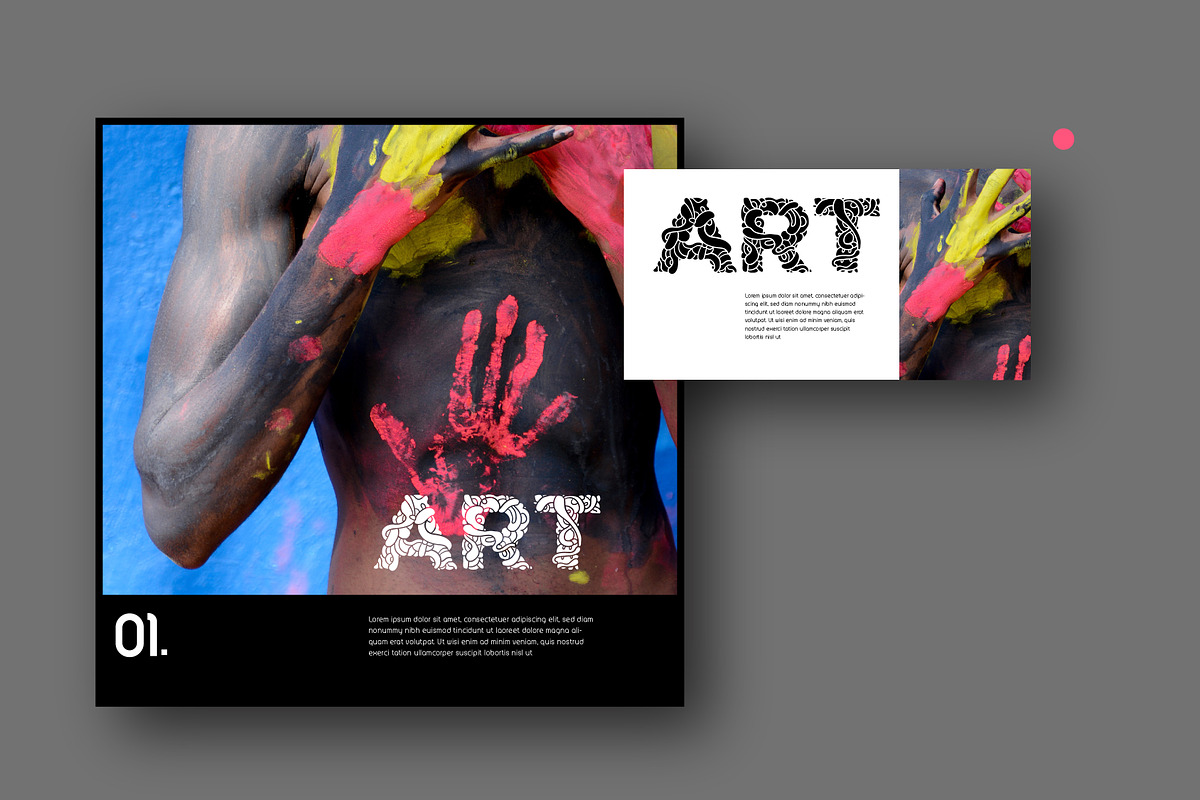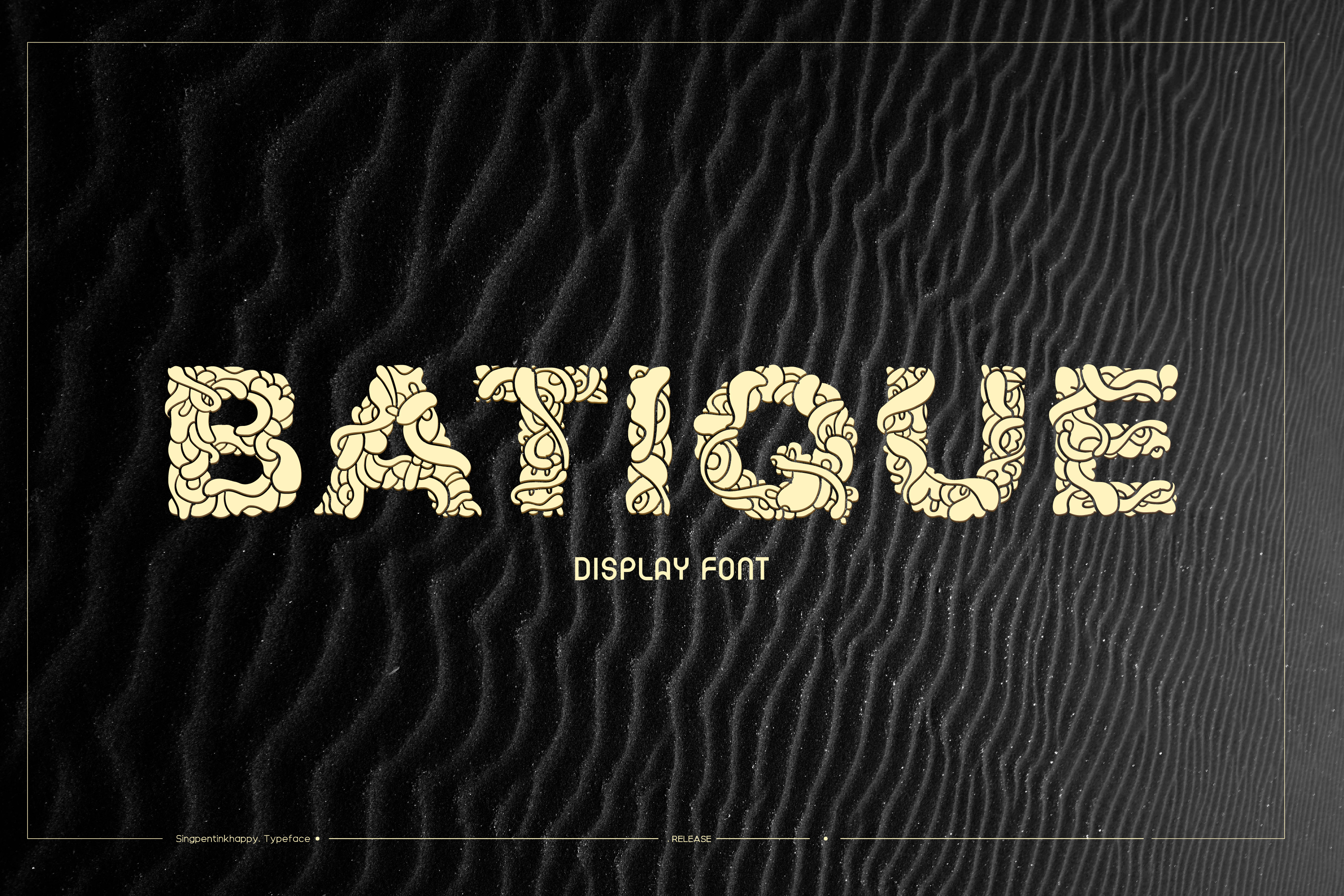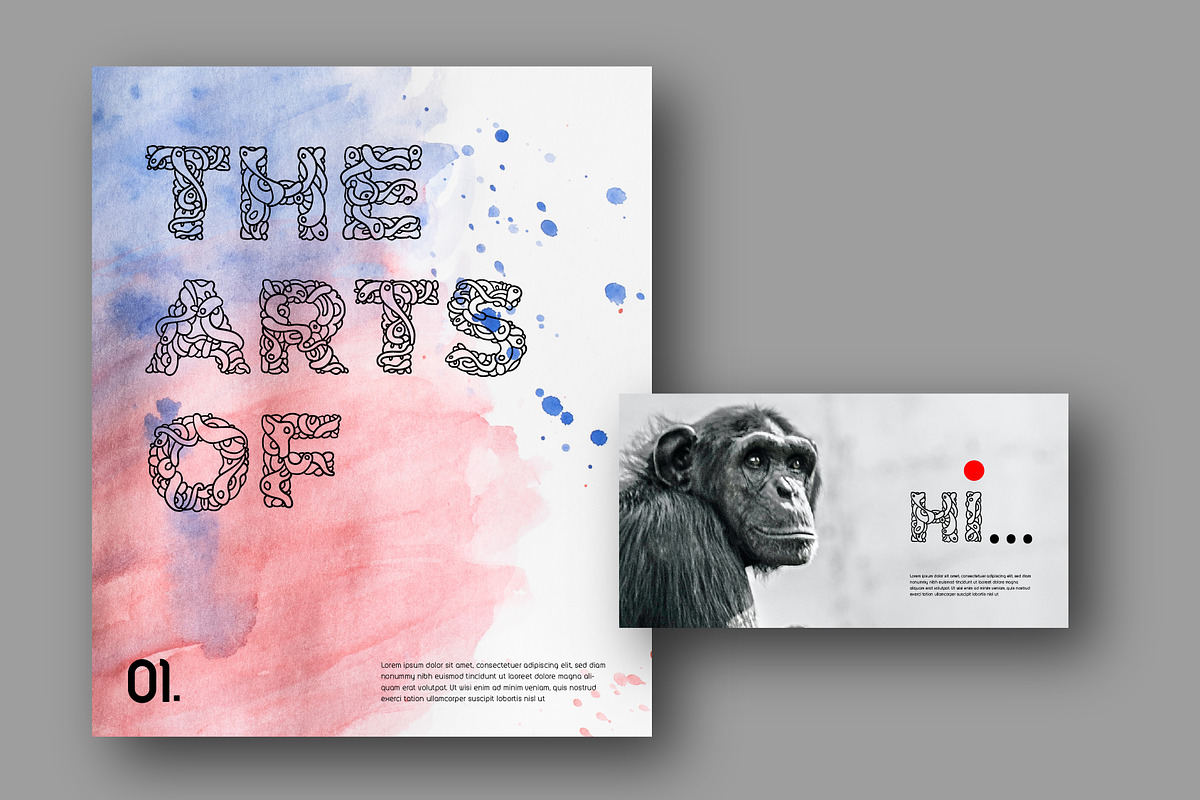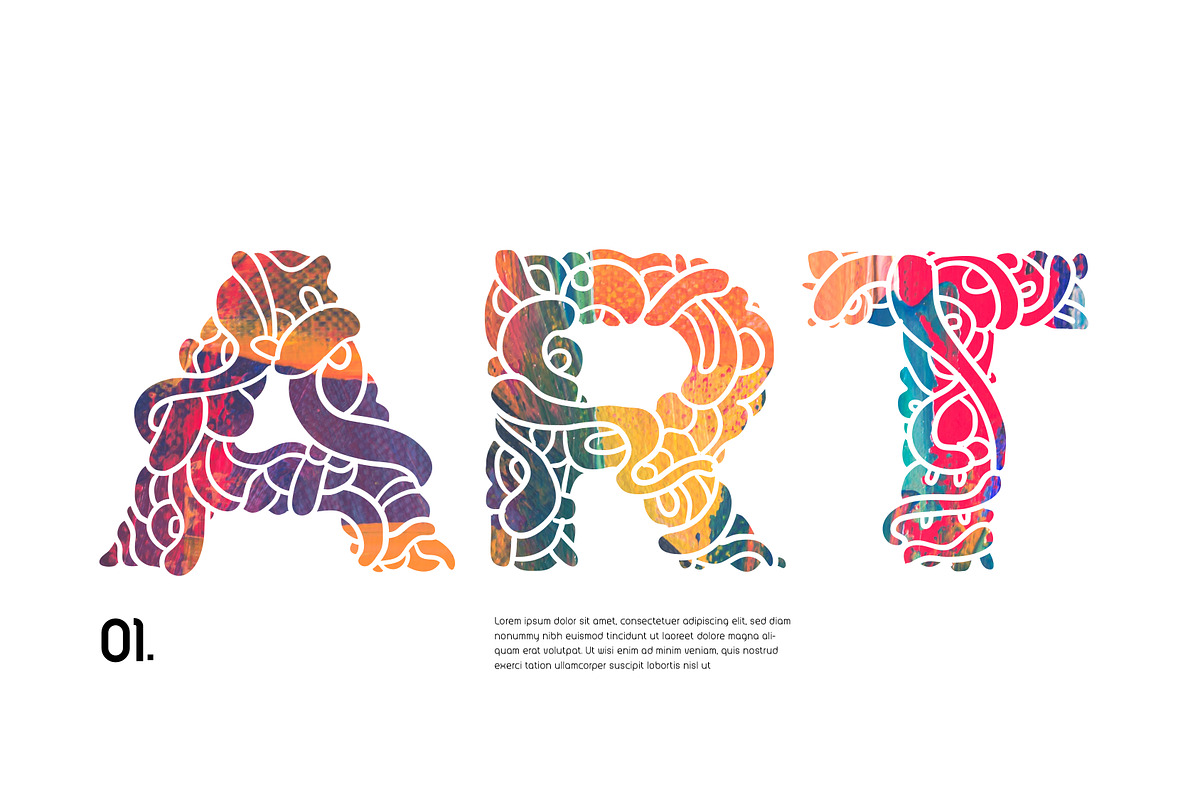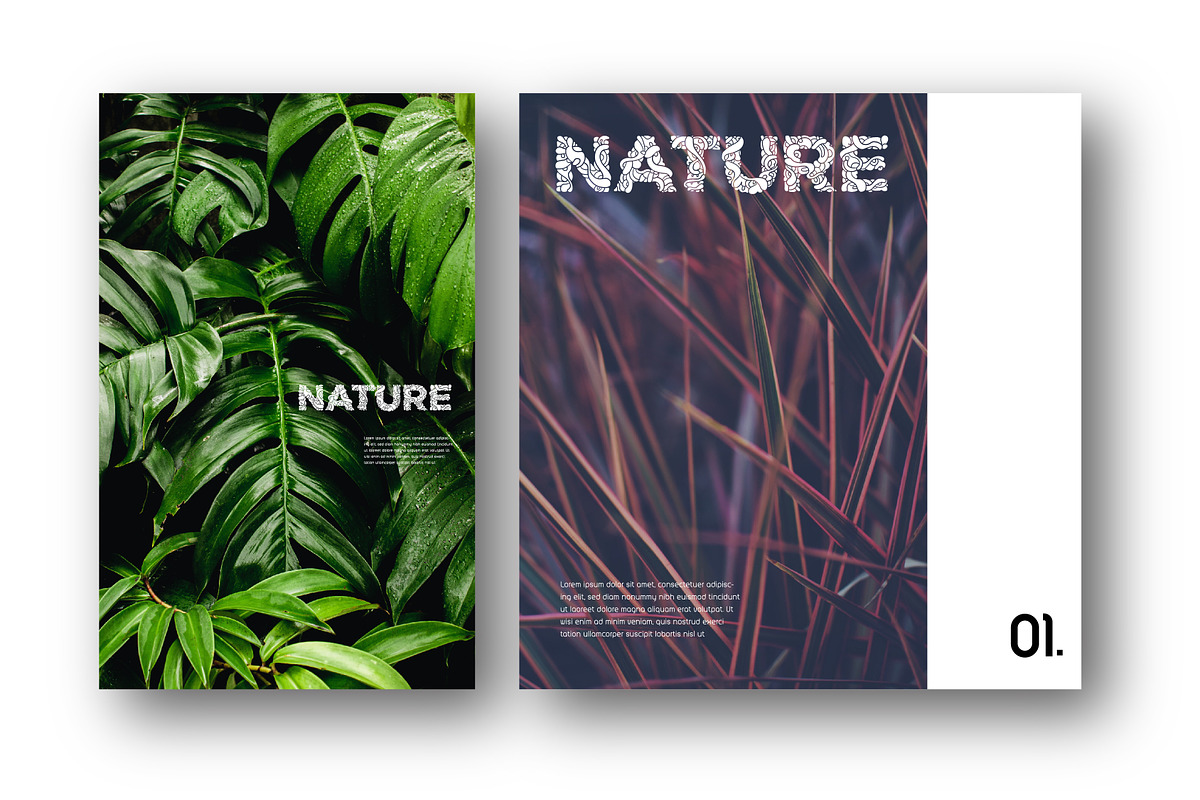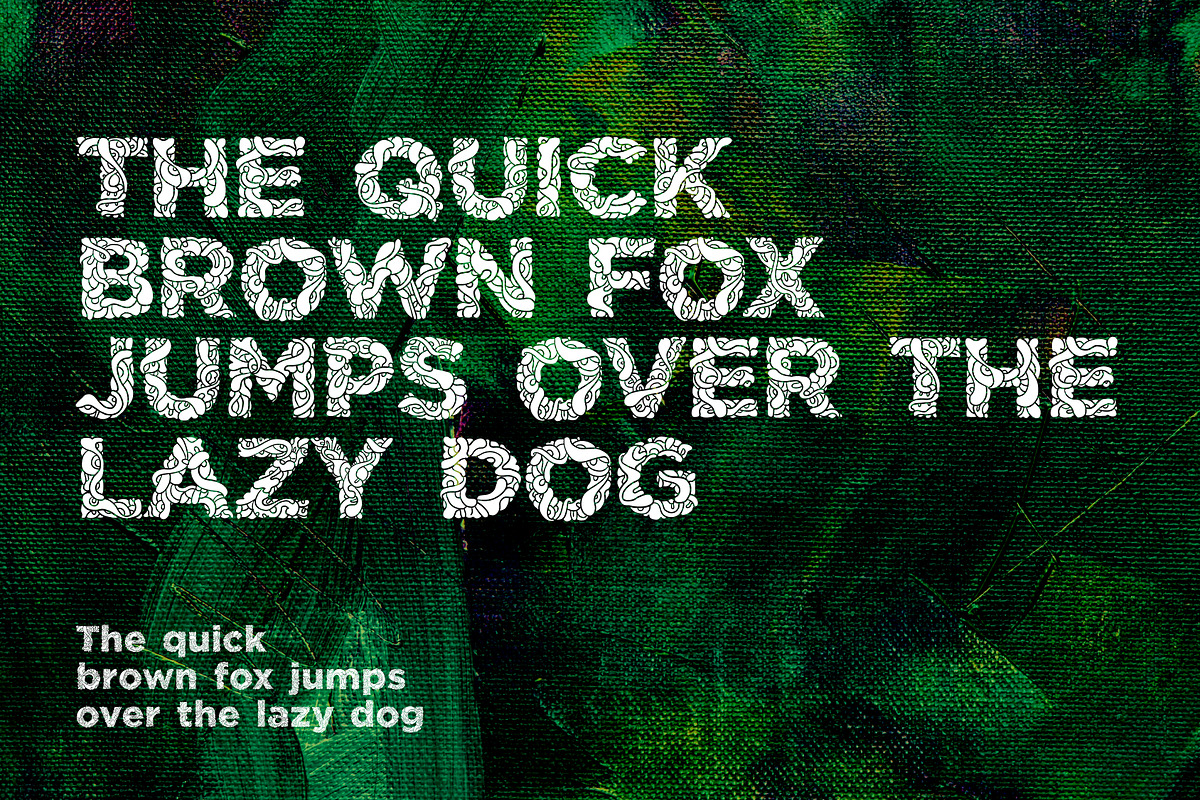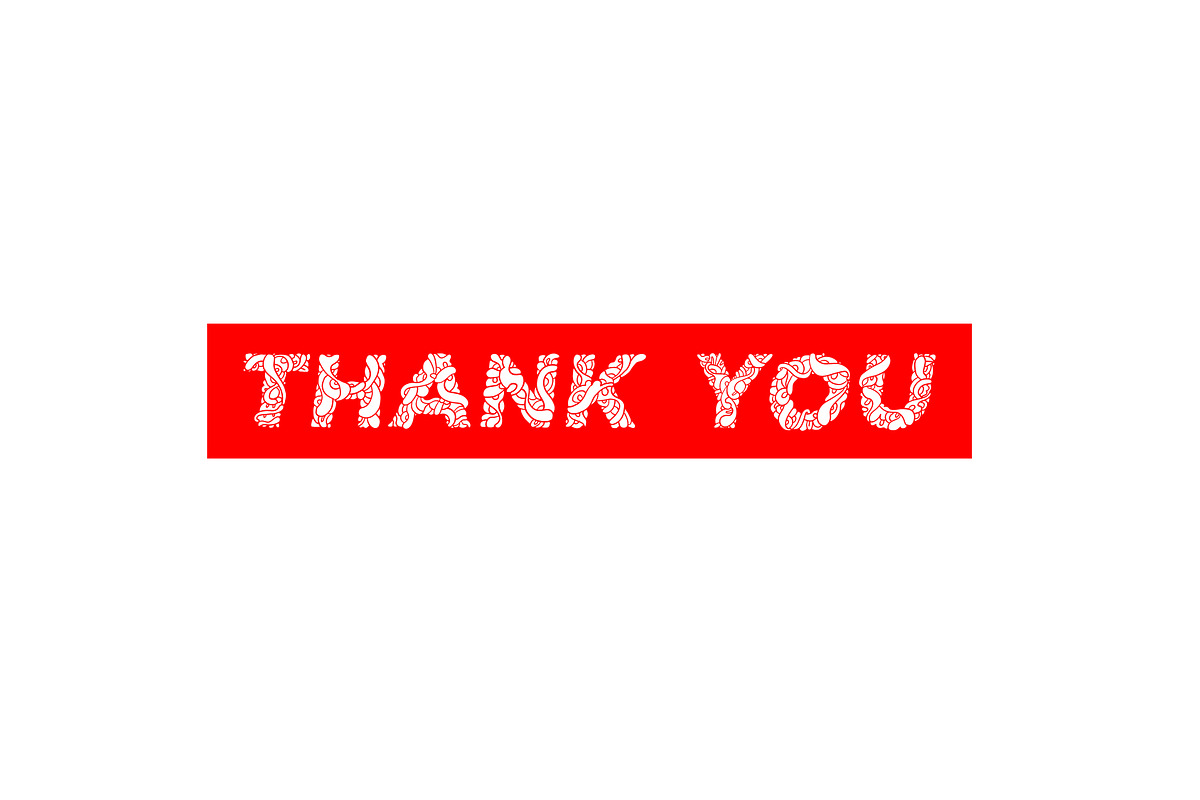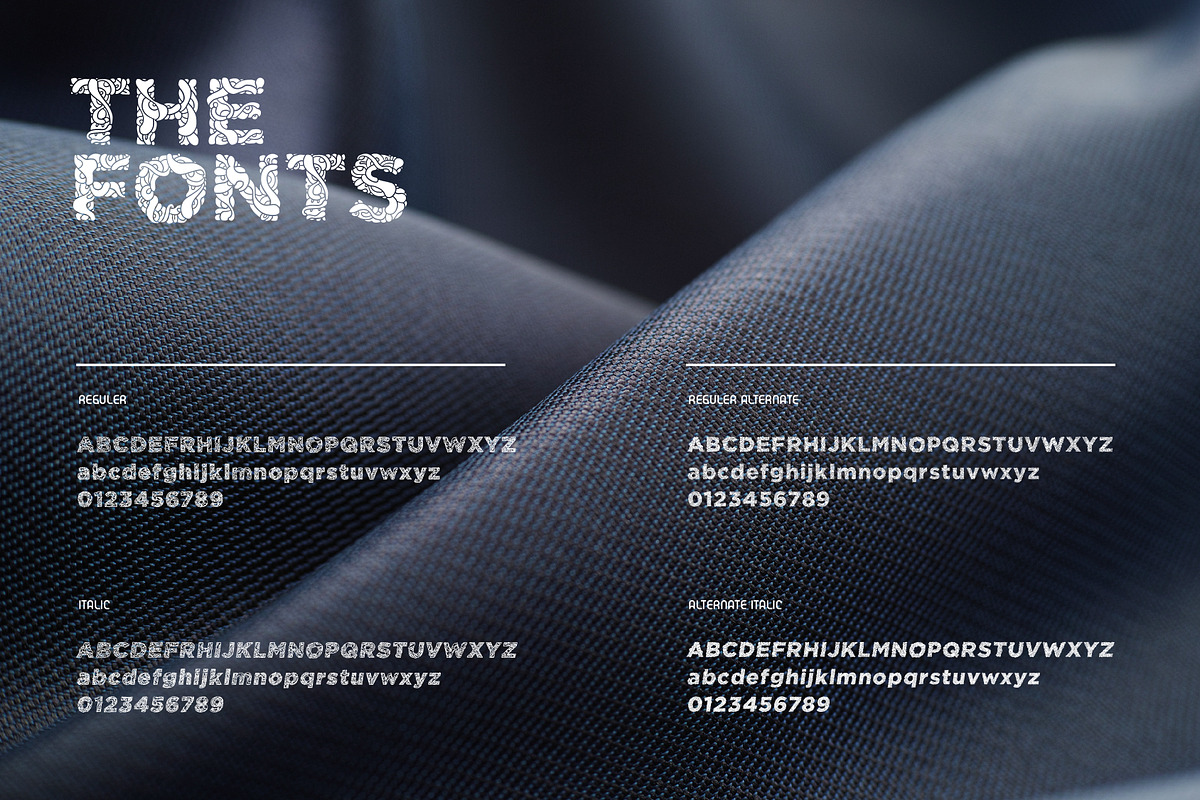
Batique - Batik Display Font
Batique is Aesthetic Heritage Display Typeface Inspired from Indonesian Batik Batique is great for Art, Culture and for graphic design typography experiment will very interesting. Thanks for checking out Batique.
Typeface
- Batique Regular
- Batique Italic
- Batique Alternate
- Batique Alternate Italic